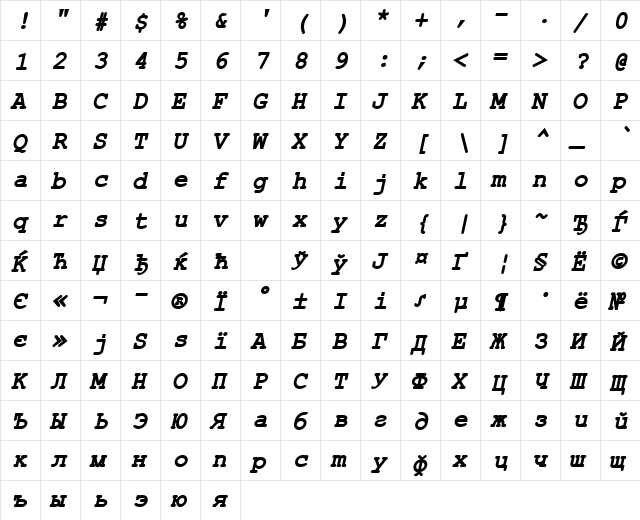
ER Kurier 1251 Bold Italic Font Preview
Design Context for ER Kurier 1251 Typeface
ER Kurier 1251 takes a measured approach to typography — its balanced proportions and neutral character make it a reliable workhorse for both digital and print work. The dynamic lean of this cut emphasises speed and emphasis in any layout. The heavy weight commands attention and anchors typographic hierarchies.
Pro Tip: Try ER Kurier 1251 for annotation and caption copy alongside an upright companion — the contrast in angle creates a dynamic but ordered typographic system.